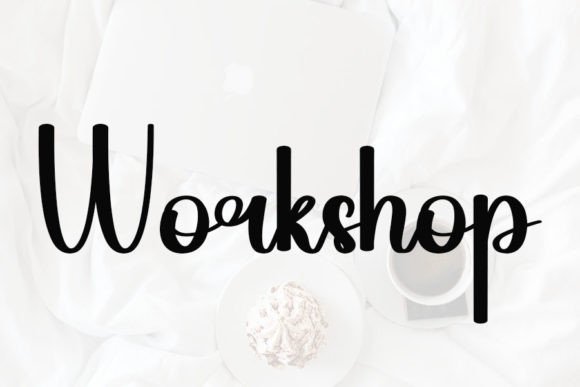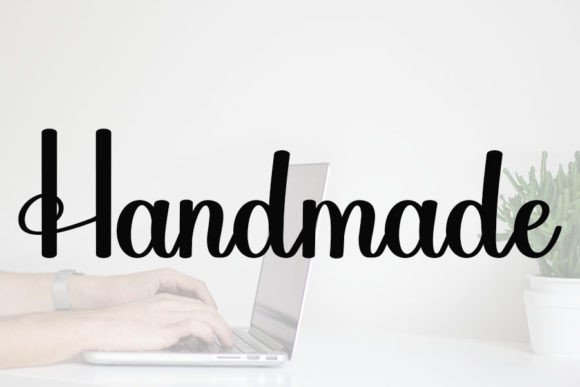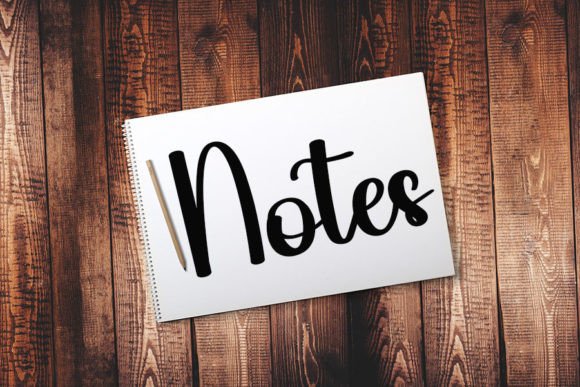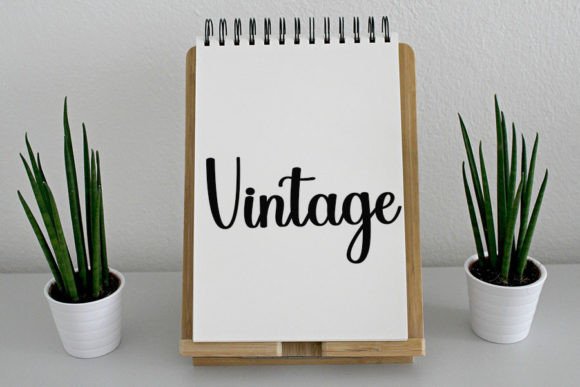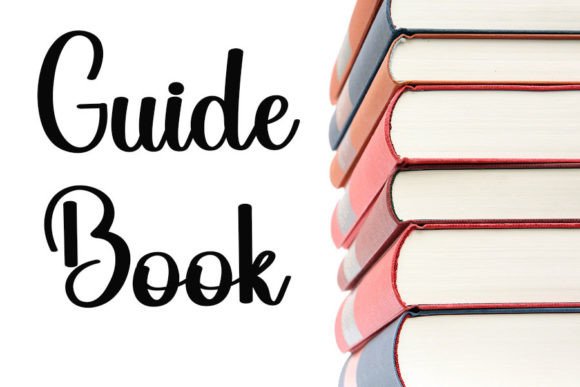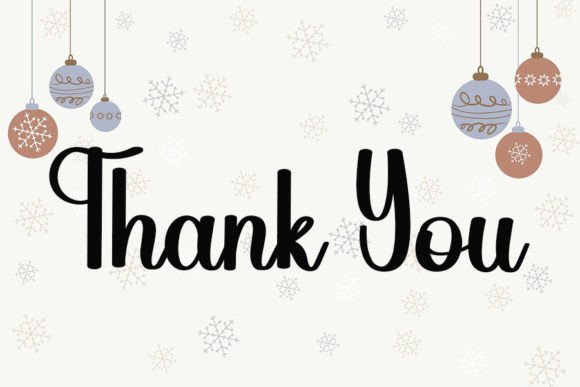
Introducing Daily Font: Elevate Your Designs with Elegance
Are you on the hunt for a font that adds a touch of sophistication and elegance to your projects? Look no further than Daily Font, a stunning handwritten font that is sure to capture your heart. With its unique and timeless style, Daily Font is the perfect choice for designers and crafters looking to create spectacular designs that stand out from the crowd.
The Beauty of Daily Font
Daily Font is a neat and beautiful handwritten font that boasts an elegant touch, making it ideal for a wide range of projects. Whether you’re working on a logo, branding materials, or digital content, this font is sure to impress. Its incredibly distinct style is what sets it apart from other fonts, giving your designs a unique and recognizable flair.
Key Features of Daily Font
- Elegant and Refined: Daily Font features an elegant and refined design that adds a touch of sophistication to any project.
- Handwritten Style: With its handwritten style, Daily Font brings a personal and human touch to your designs.
- Distinct and Timeless: The font’s distinct and timeless style ensures that your designs will remain relevant and stylish for years to come.
- Versatile: Daily Font is versatile and can be used for a wide range of projects, from logos and branding materials to digital content and more.
Why Choose Daily Font?
So, why should you choose Daily Font for your projects? Here are just a few reasons:
- Stand Out from the Crowd: With Daily Font, you can create designs that stand out from the crowd and grab attention.
- Easy to Read: The font is easy to read, making it perfect for digital content, such as blog posts, articles, and more.
- Customizable: Daily Font is highly customizable, allowing you to adjust the font to suit your design needs.
- Support for Multiple Languages: The font supports multiple languages, making it a great choice for designers and crafters working on international projects.
- Experiment with Different Sizes and Colors: Try out different sizes and colors to see what works best for your design.
- Pair with Other Fonts: Daily Font pairs well with other fonts, so don’t be afraid to experiment with different font combinations.
- Use for Headings and Titles: The font is perfect for headings and titles, adding a touch of elegance and sophistication to your designs.